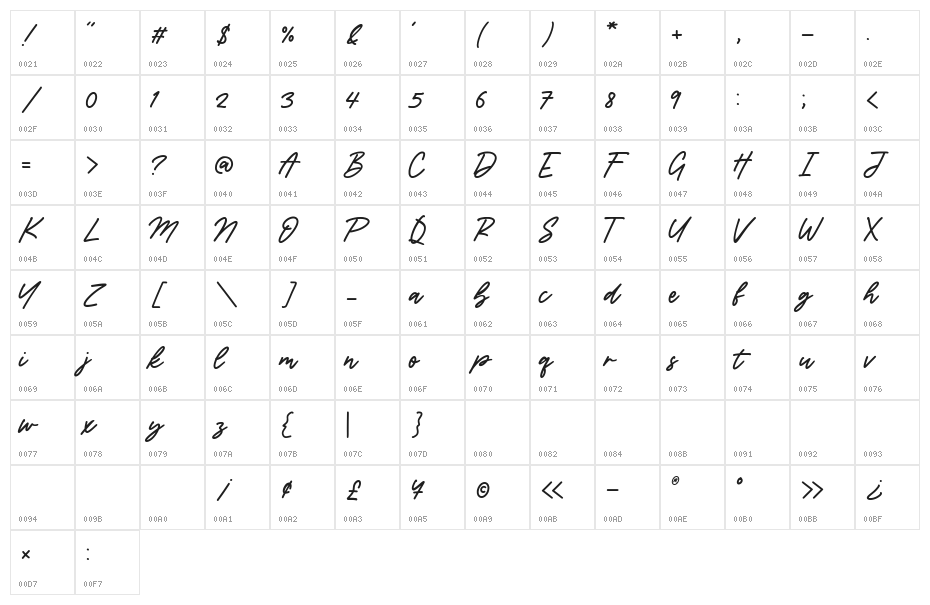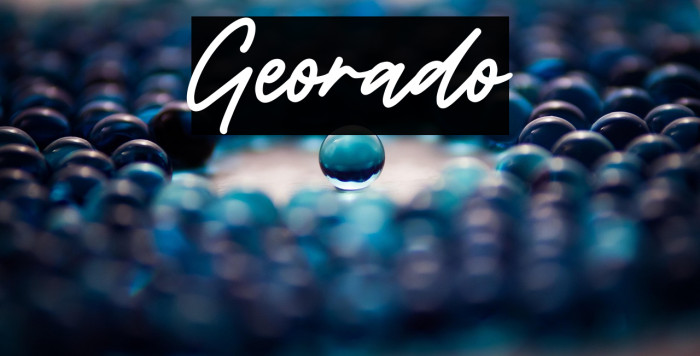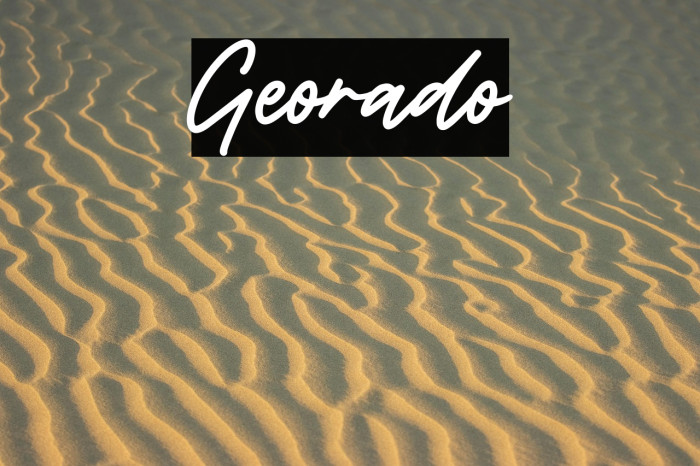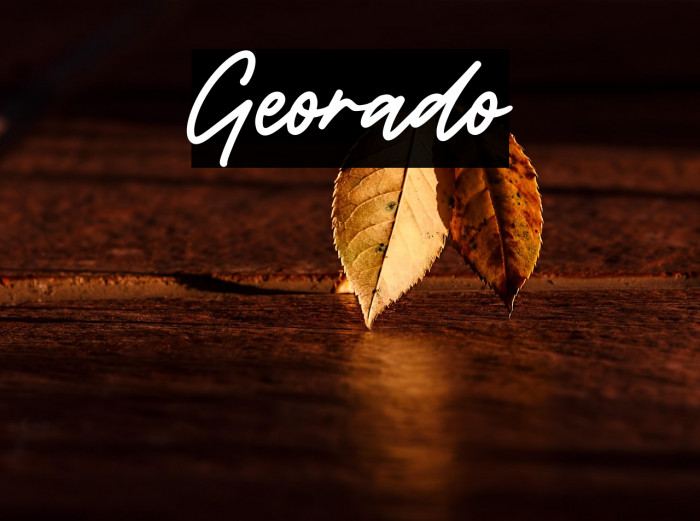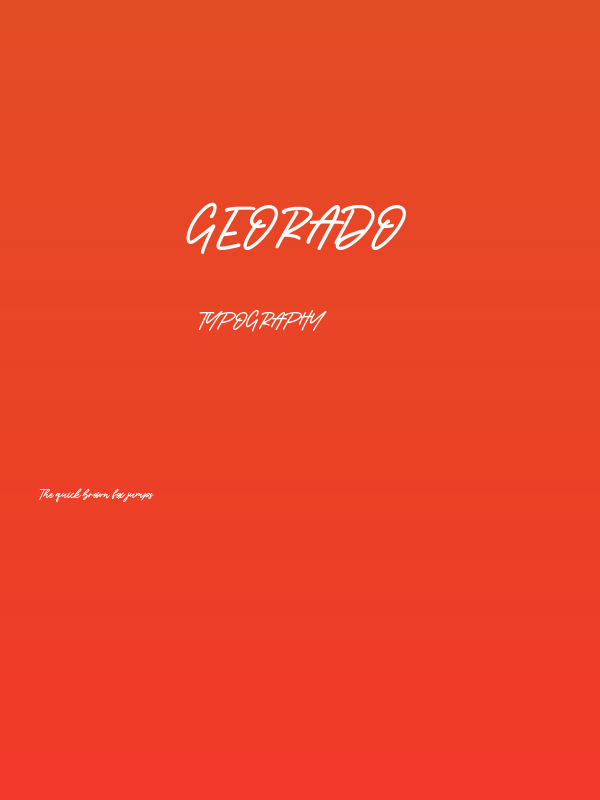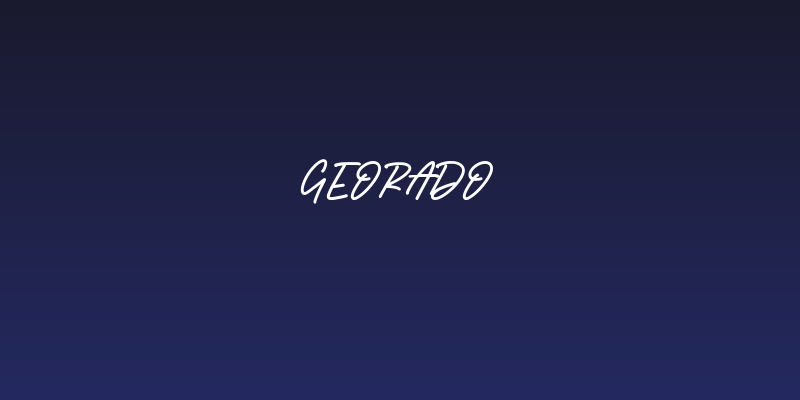
Georado Font
Georado Description
This font features a dynamic and fluid script style, characterized by its elegant, handwritten appearance. The letters are connected, creating a seamless flow that mimics natural handwriting. The uppercase letters maintain a consistent height, while the lowercase letters vary slightly, adding to the organic feel. The numerals and special characters are crafted with the same fluidity, ensuring a cohesive look across all characters. The strokes are smooth and slightly slanted, contributing to the overall graceful aesthetic. This font exudes a sense of sophistication and personal touch, making it ideal for projects that require a human element.
| Overall Style | Elegant, Handwritten |
| Use Case | Logos, Invitations, Personal Branding |
| Proposed Projects | Ideal for wedding invitations, personal branding, greeting cards, and elegant packaging designs. |